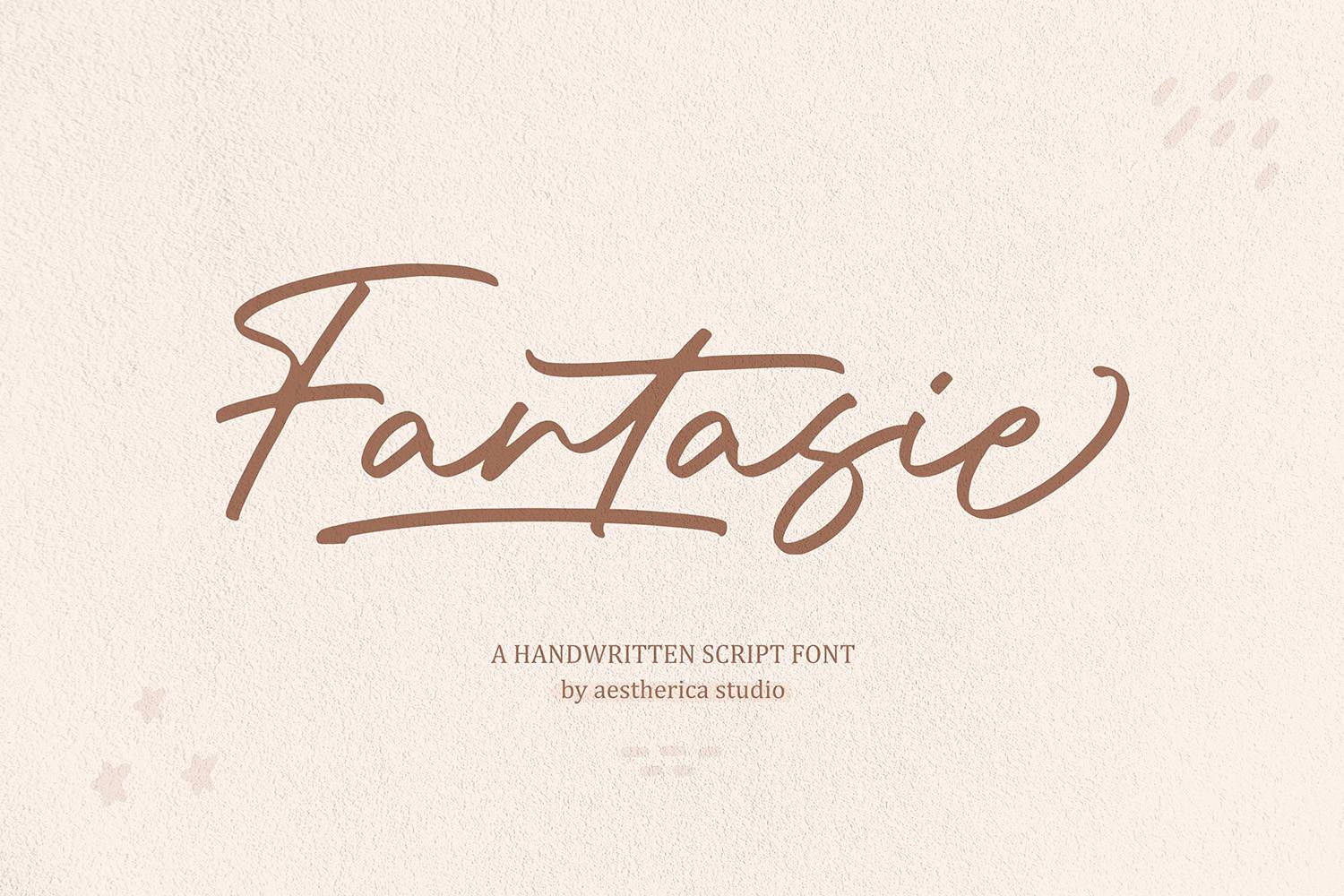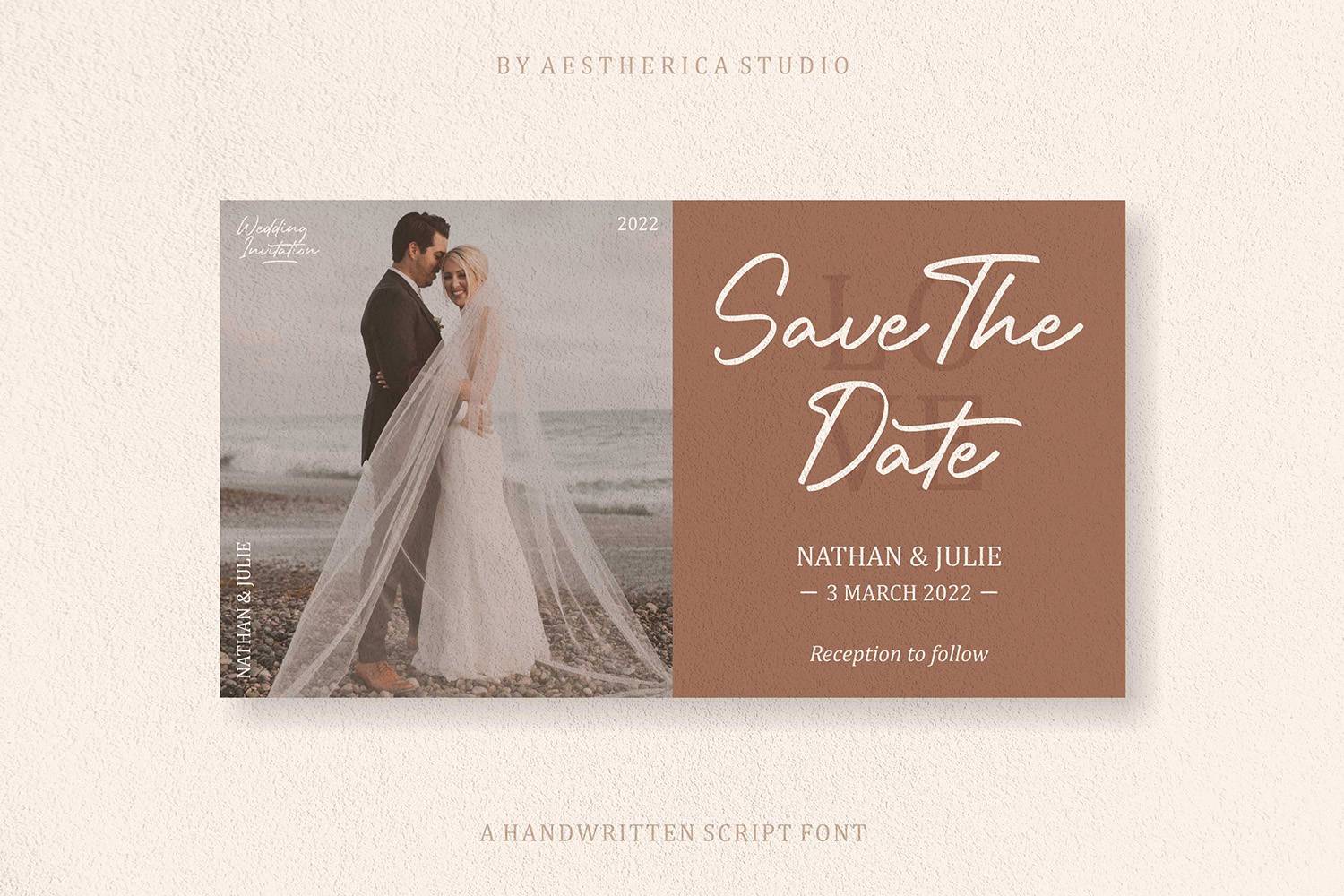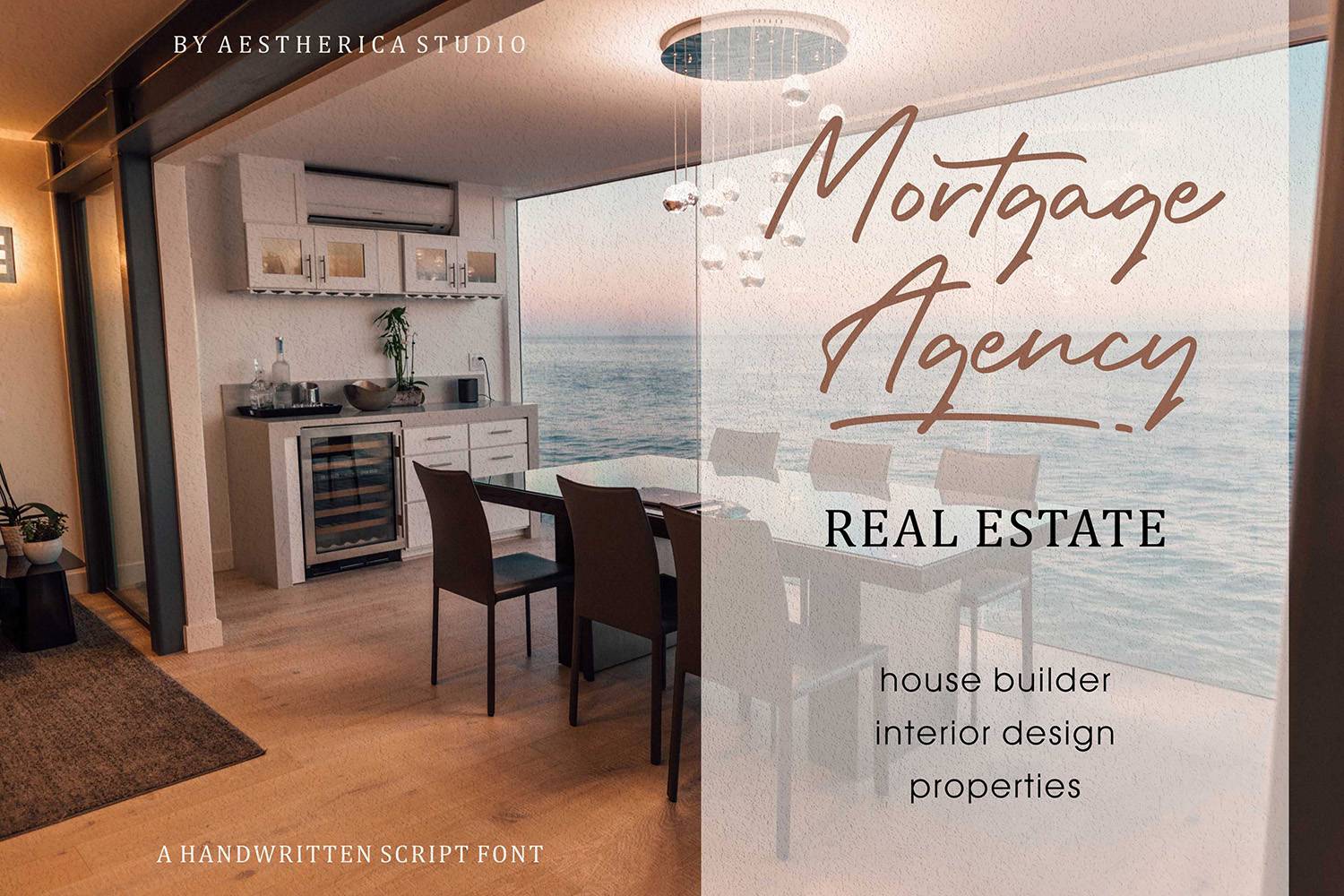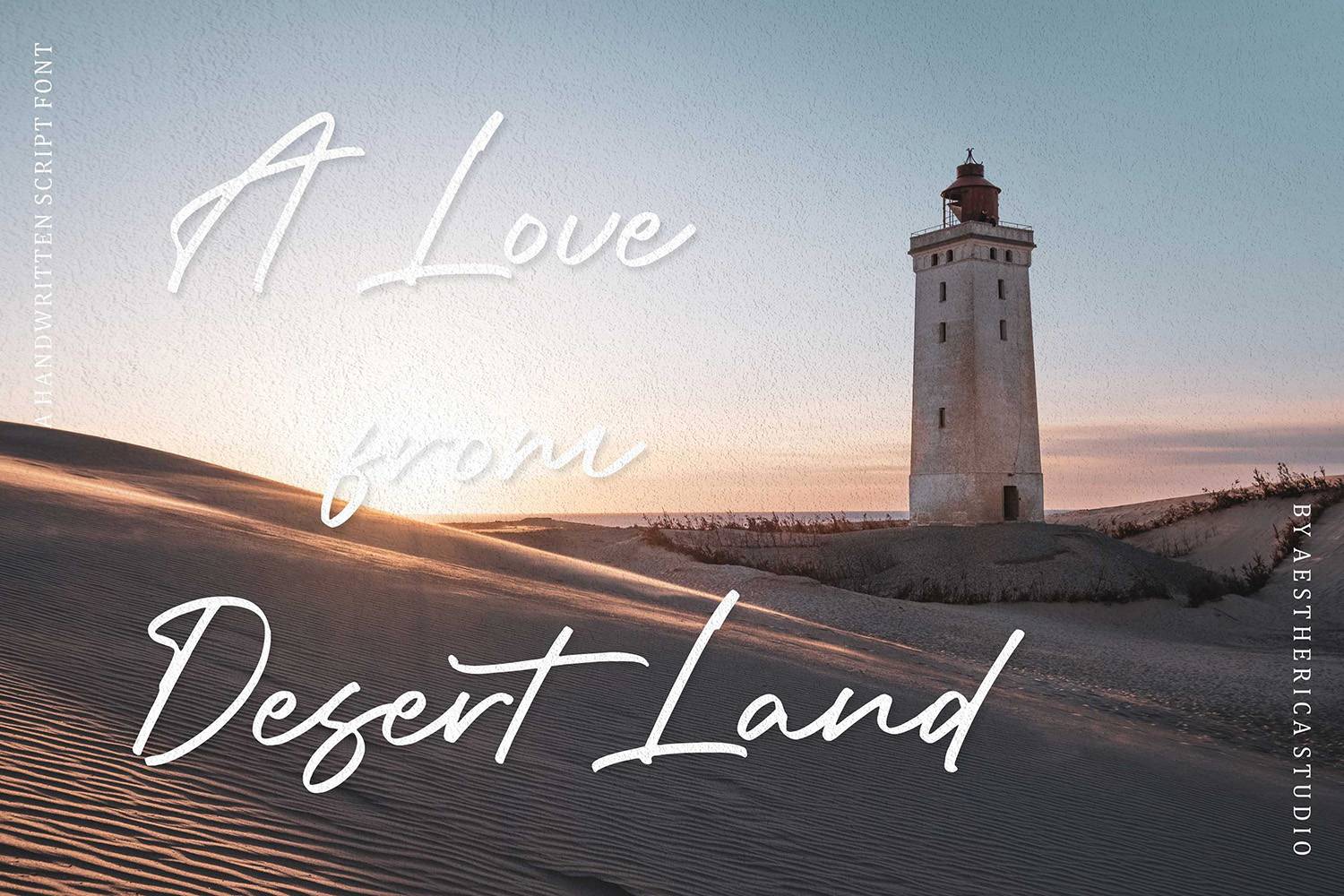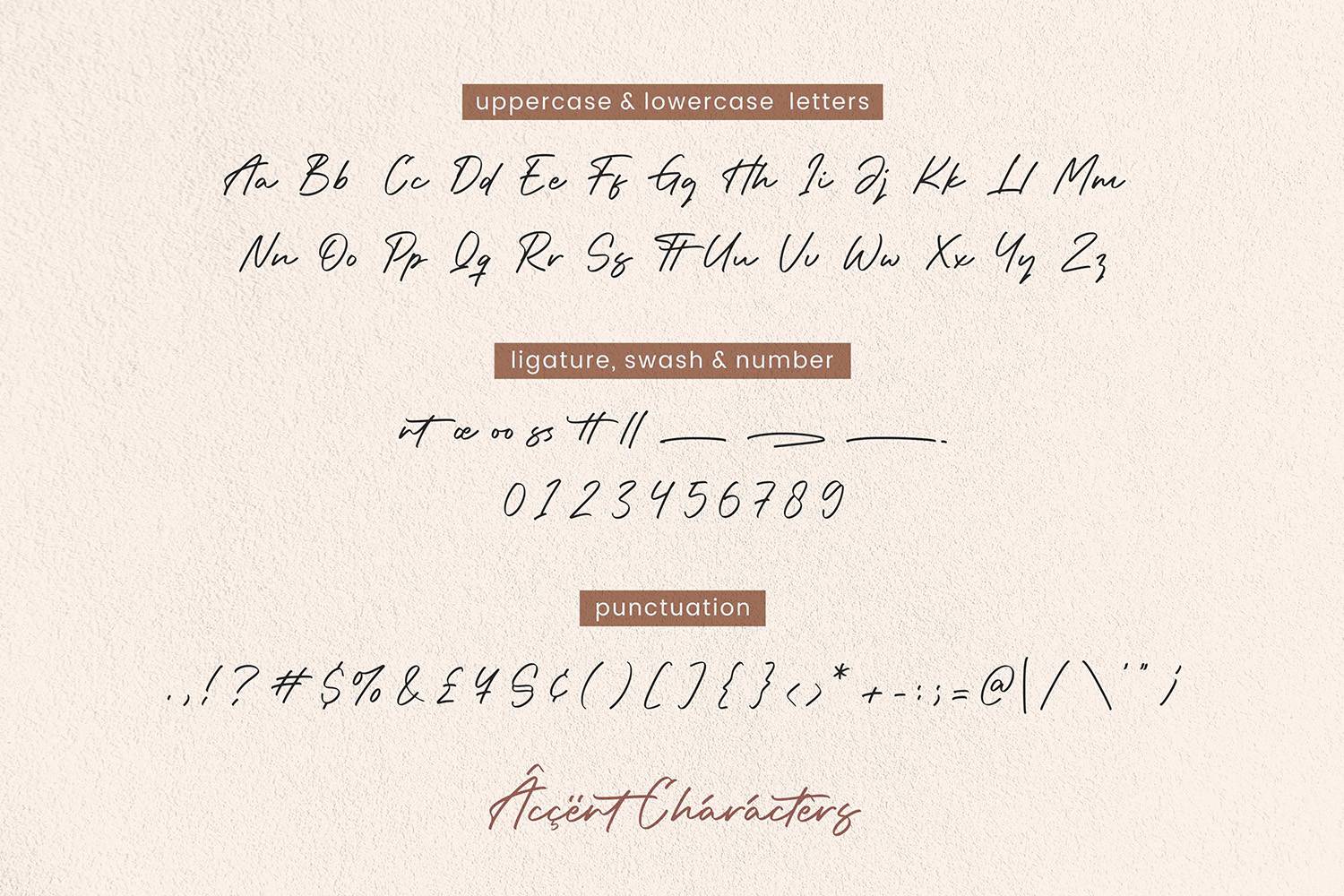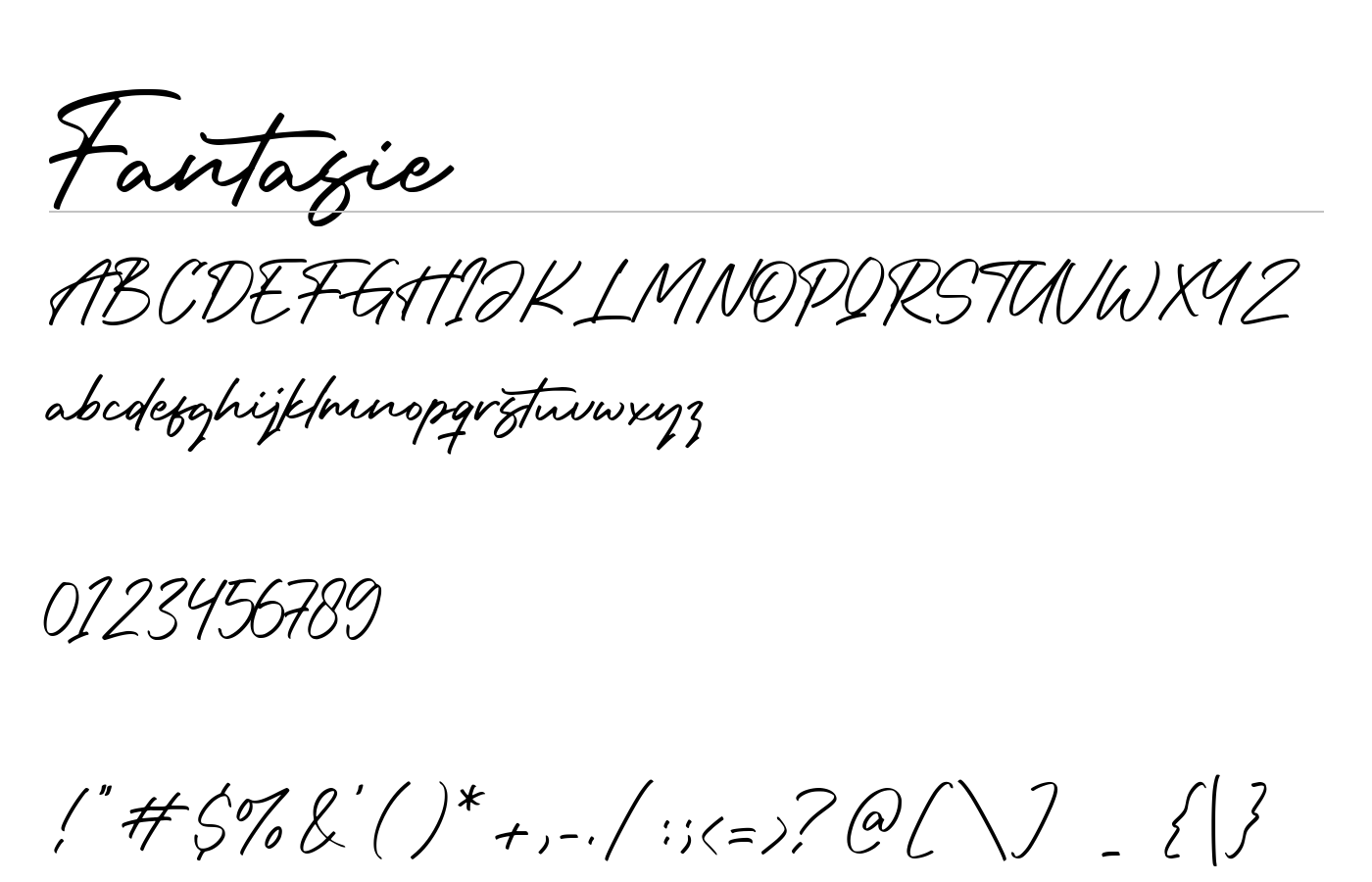
Fantasie Font is a lively and elegant script typeface characterized by its fluid, handwritten style with a light weight and slight slant, giving it a personal and artistic touch. It features smooth, connected strokes and delicate curves that convey a sense of creativity and sophistication, making it ideal for branding, invitations, and designs seeking a friendly yet refined feel. This font works especially well in logos and headlines where a stylish, approachable atmosphere is desired.
Fantasie Font
About Fantasie Font